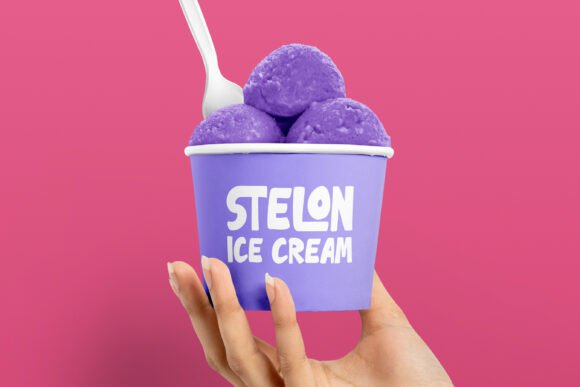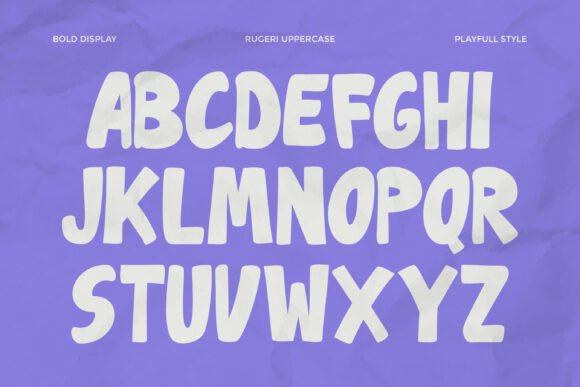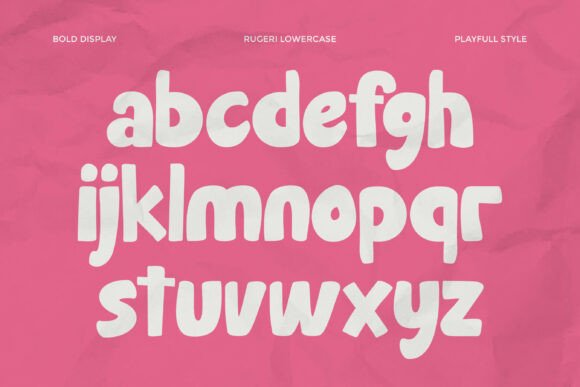
Introduction to Rugeri Font Font
Fonts play a crucial role in design, and the Rugeri Font font is a typeface that brings both character and versatility to any project. Whether you’re working on a branding project, a website, or a print design, the Rugeri Font font offers a unique style that can elevate your work.
Rugeri is a bold, playful display font designed to make a strong and cheerful visual statement.
With its chunky letterforms, rounded edges, and expressive shapes, Rugeri delivers a fun yet confident look that instantly captures attention This font is perfect for projects that require boldness with personality, combining a playful character with high readability in one powerful display font.
Key Features of Rugeri Font Font
Why Choose Rugeri Font Font?
The Rugeri Font font is more than just a typeface – it’s a design tool that helps you communicate your message with style and clarity. Its unique character set and versatile design make it suitable for a wide range of applications, from elegant invitations to bold headlines.
With its carefully crafted letterforms and balanced proportions, the Rugeri Font font ensures readability and visual appeal across all mediums.
What makes Rugeri Font font special?
The Rugeri Font font stands out with its unique design, exceptional readability, and versatility across various design applications.